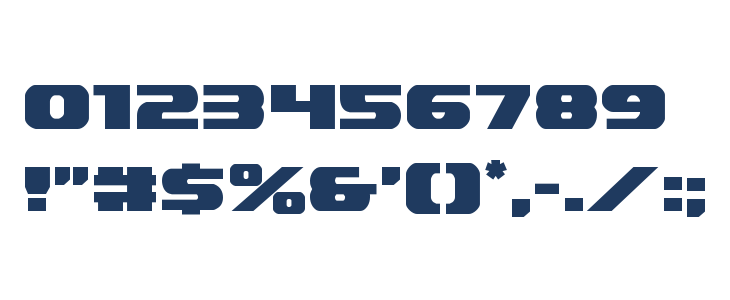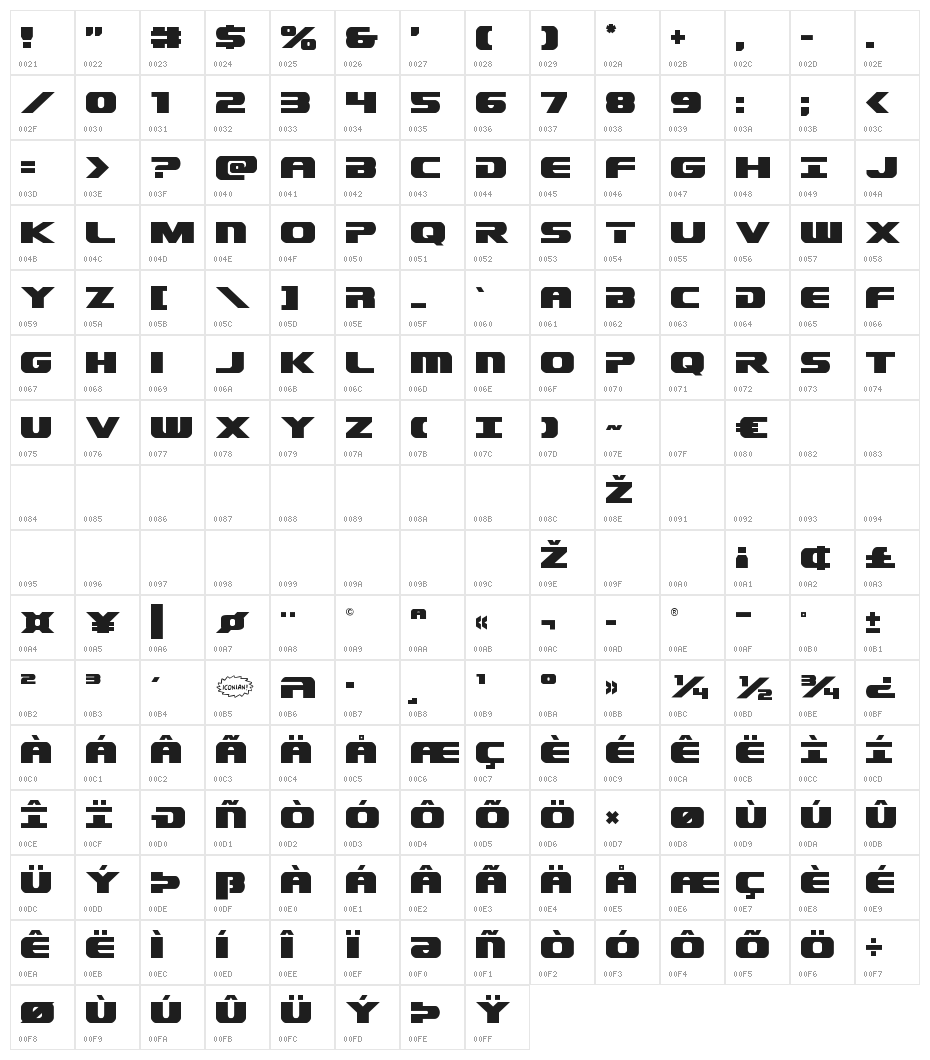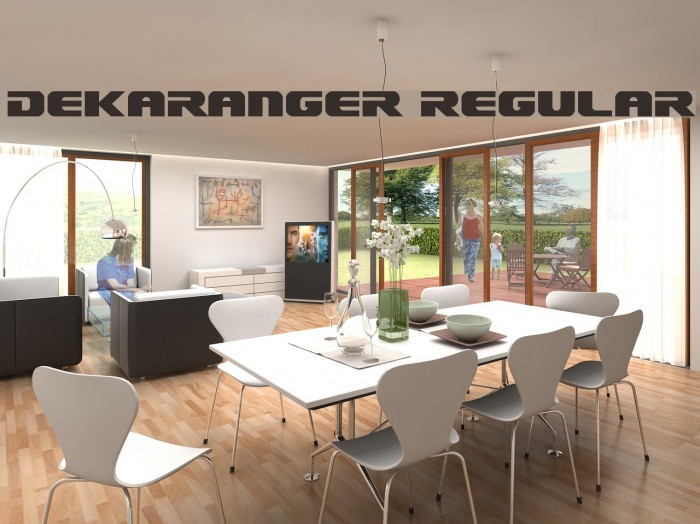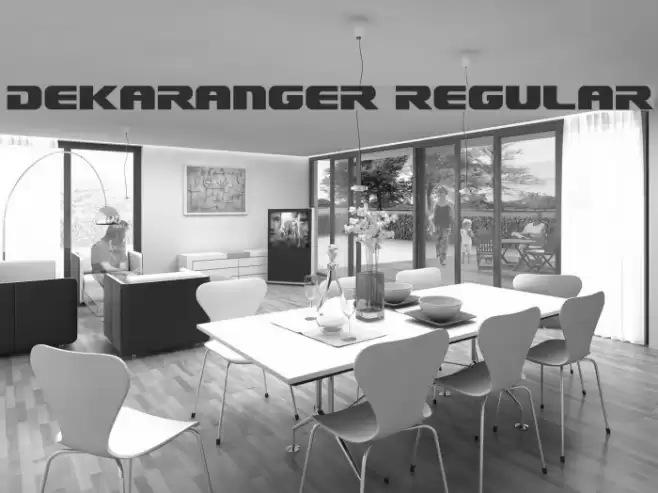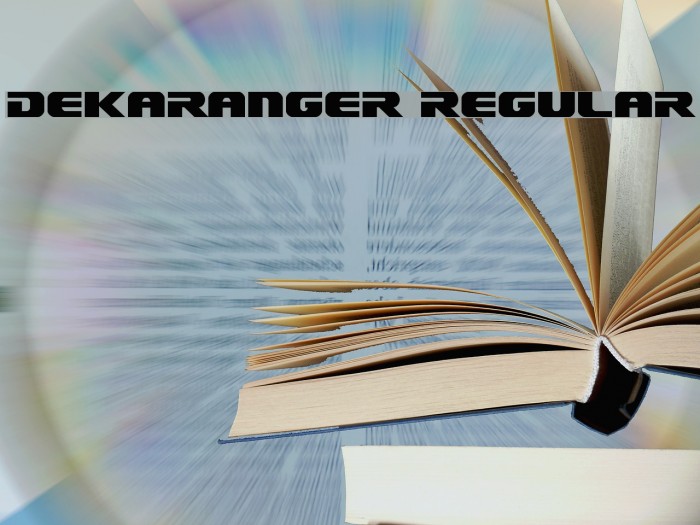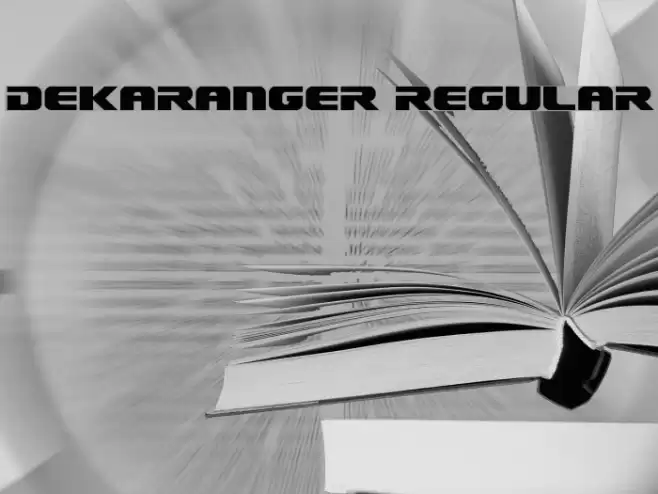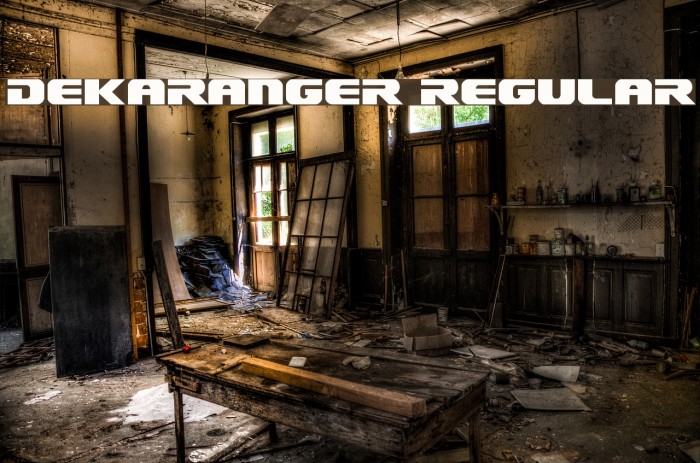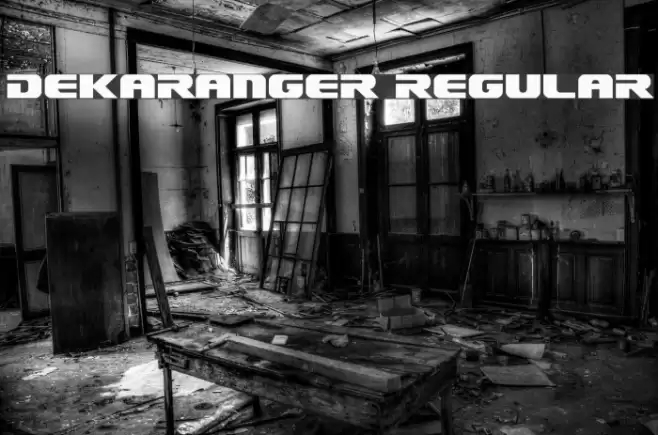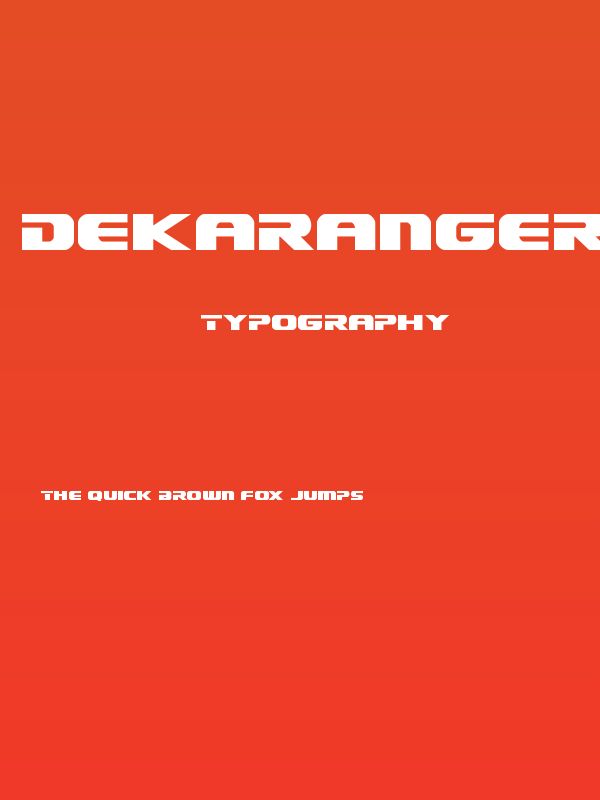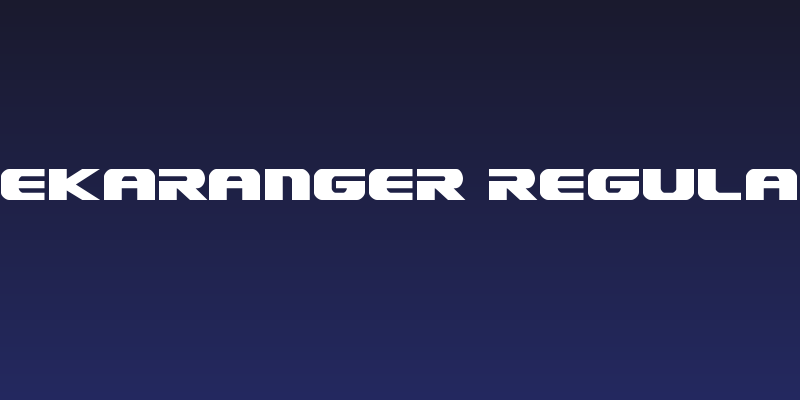
Dekaranger Regular Font
Dekaranger Regular Description
This font features a bold and futuristic design with strong geometric shapes and a distinct sci-fi aesthetic. The characters are wide and blocky, with a consistent thickness throughout, creating a uniform and powerful appearance. The uppercase letters are particularly striking, with angular cuts and sharp edges that give the font a dynamic and energetic feel. The numbers and special characters maintain the same bold style, ensuring cohesion across all elements. This font is ideal for projects that require a modern and impactful look, such as technology branding, video game titles, or futuristic posters.
| Proposed Projects | Ideal for technology branding, video game titles, and futuristic posters. |